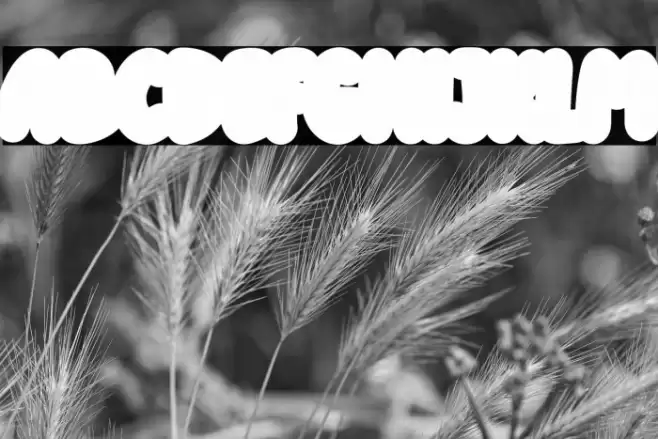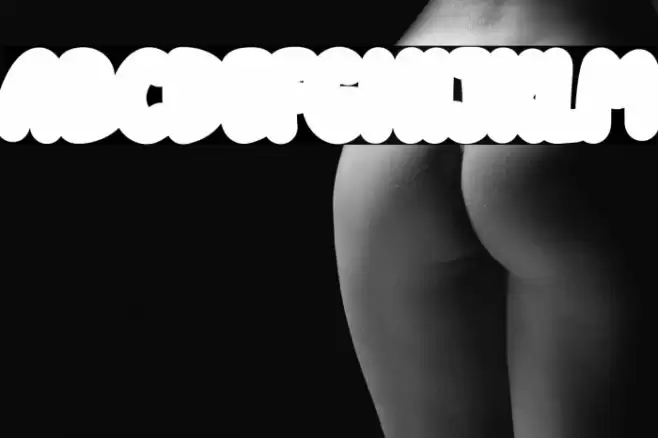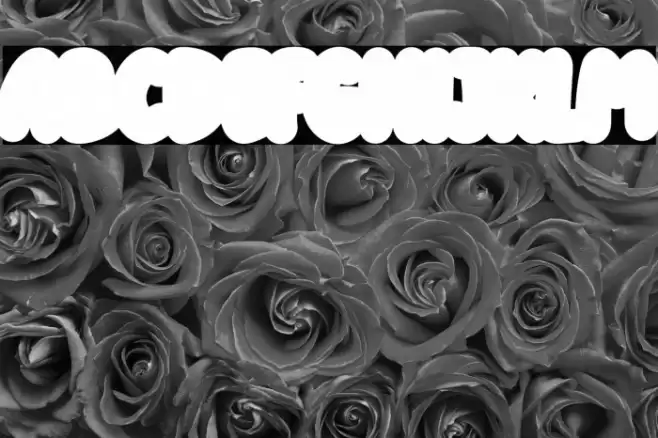
KiddosyFree-Block Font
KiddosyFree-Block Description
This playful and bold font features a bubbly, rounded design that exudes a sense of fun and whimsy. The characters are thick and substantial, with a consistent stroke width that gives them a cohesive and unified appearance. The rounded edges and smooth curves contribute to a friendly and approachable feel, making it ideal for projects aimed at children or for creating a lighthearted atmosphere. The font maintains a uniform height across both uppercase and lowercase letters, ensuring readability while still retaining its unique style. The numbers and special characters are designed with the same playful aesthetic, ensuring consistency throughout any text. This font is perfect for capturing attention and conveying a sense of joy and creativity.
A playful, bold font with rounded, bubbly characters perfect for fun projects from Comic fonts.
- Font: KiddosyFree-Block
- Proposed Projects: Ideal for children's books, playful branding, party invitations, and creative posters.
- Overall Style: Playful, Fun